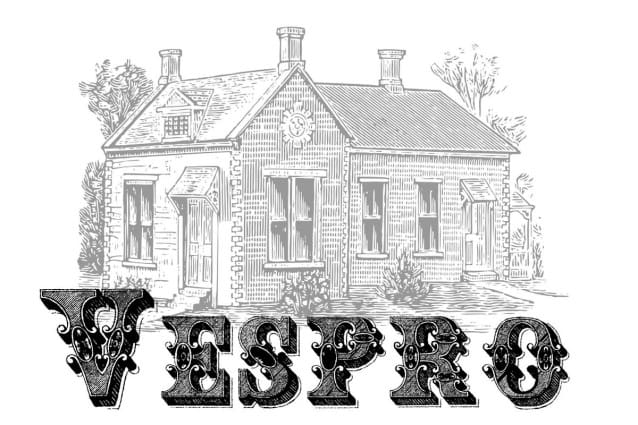
Vespro Font
Vespro Font is a digitization from a rare set of engravings. This font is perfect for stickers, retro projects, craft projects, shirts, svg designs, procreate designs, branding, blogs, logos, invitations and more!